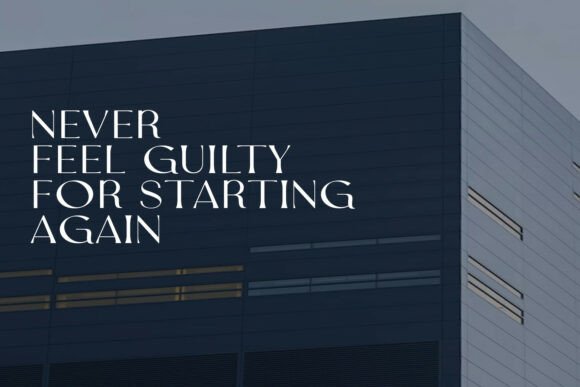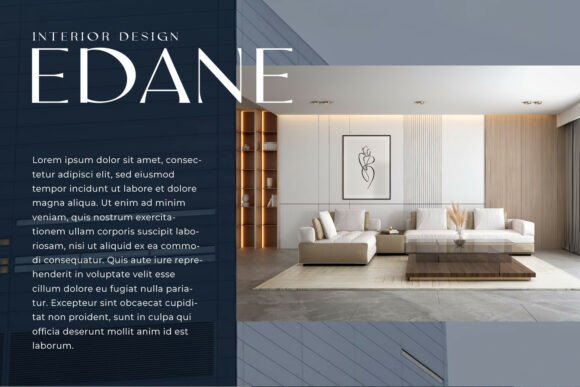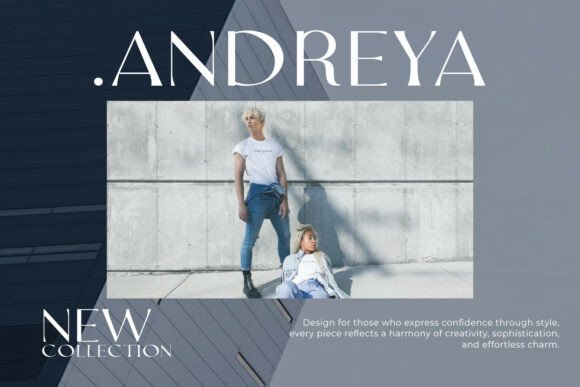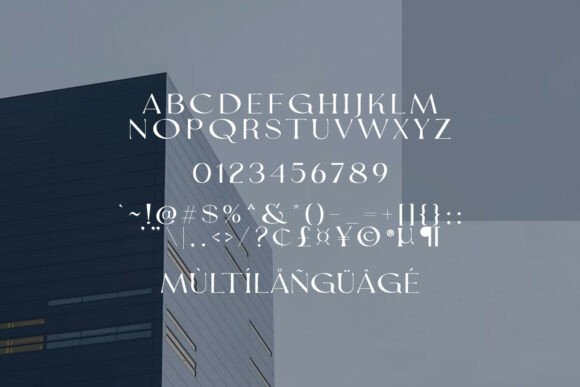
The Perfect Blend of Timeless Elegance and Modern Flair
Imagine you’re a designer tasked with creating a luxurious brand identity for a high-end fashion house. You want your typography to exude sophistication, confidence, and style. You search for the perfect font to convey the essence of your brand, and then you stumble upon it – the Boltova Font. This sophisticated serif display font is crafted to make a statement, with refined contrast, sharp serifs, and perfectly balanced proportions.
As a creator, you know that the right font can make or break a design. That’s why the Boltova Font is a valuable addition to any designer’s toolkit. Its versatility allows it to seamlessly transition from a corporate environment to a luxury lifestyle brand, making it an ideal choice for branding, logos, fashion projects, invitations, websites, and high-end social media visuals.
Boltova Font Key Features
- Unique Characteristics: Boltova Font features a unique blend of modern and vintage elements, with intricate details and ornaments that add a touch of elegance and sophistication to any design.
- Character Set: The font includes a comprehensive character set, covering a wide range of languages, including Latin, Cyrillic, and Greek alphabets, as well as various punctuation and symbol characters.
- Font Style: Boltova Font is available in a single style, with various weights and optical sizes to suit different design needs.
Boltova Font Review
Overall, I found Boltova Font to be a solid, clean option for body text. The font’s simplicity makes it highly legible, and it works well in both digital and print applications.
- ✨ Highly legible: Boltova Font is easy to read, even at smaller font sizes.
- ✨ Clean design: The font’s minimalistic style makes it a great choice for modern designs.
- ✨ Versatile: Boltova Font works well in a variety of contexts, from news articles to marketing materials.
- ⚠️ Limited personality: Boltova Font’s simplicity can make it feel a bit generic or unremarkable.
- ⚠️ Not ideal for headings: While Boltova Font works well for body text, it may not be the best choice for headings or titles.
While Boltova Font may not be the most exciting or attention-grabbing option, it’s a solid choice for designers looking for a clean, legible font. It’s a great option for projects where you want to keep the focus on the content rather than the typography itself.
The Boltova font is ideal for use in modern design projects such as:
- Marketing materials and presentations